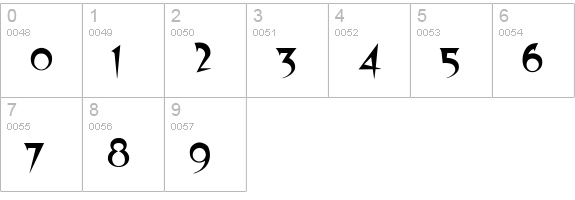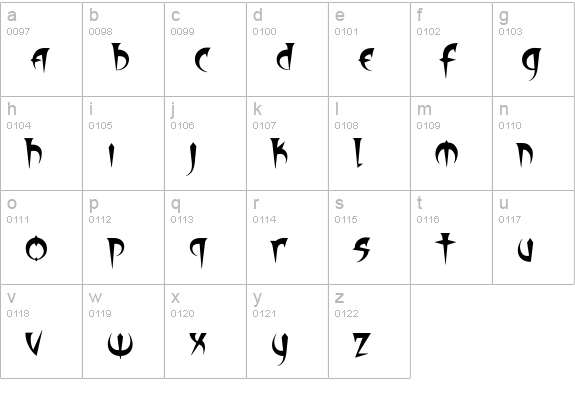
CCDivineRight-Regular Font Details
CCDivineRight-Regular is the standard, neutral variant in the CCDivineRight typeface family \xE2\x80\x94 well suited to general body text, paragraphs, and standard typographic work.
CCDivineRight-Regular is a stylish and elegant font that combines classic elements with a modern twist. With its clean lines and sophisticated design, this font is perfect for a wide range of projects, from branding to editorial design. Its versatility makes it suitable for both display and body text, ensuring that your content looks professional and polished. What sets CCDivineRight-Regular apart is not just its aesthetic appeal, but also its accessibility. This font is available for free download at FontsMarket.com, making it easy for designers and creatives to access a high-quality typeface without any cost. Whether you're working on a personal project or a client commission, CCDivineRight-Regular is a great choice that won't break the bank. Overall, CCDivineRight-Regular is a versatile and attractive font that offers both style and accessibility. Download it for free today at FontsMarket.com and elevate your design projects with this beautiful typeface.